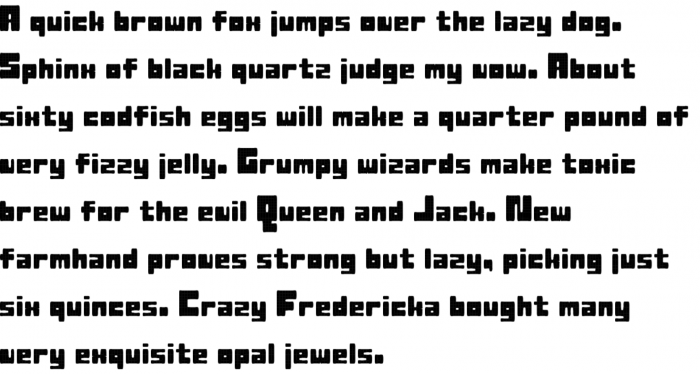
Good chunky design with a touch of 1970s. I used the thicker UC at many word starts making the LC more legible (better legibility for me with frequent change of UC-LC as seen in German texts)